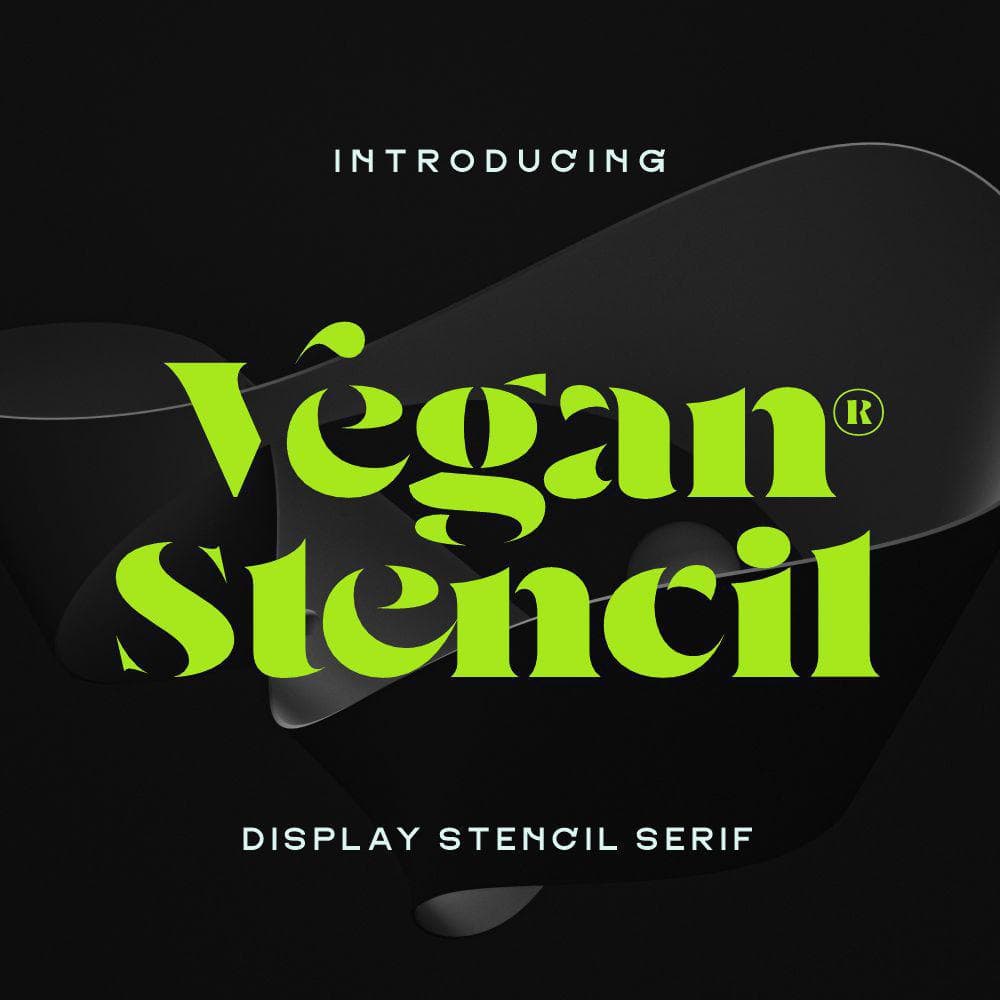
<p>*<em>introducing Vegan *</em>is a bold and elegant stencil serif typeface that combines sophistication with a modern edge. Its thick, well-defined letterforms create a striking visual presence, making it perfect for headlines, posters, branding, and editorial design. The stencil cutouts add a unique, contemporary touch while maintaining readability and a luxurious feel. Whether used in high-end fashion branding, event invitations, or magazine covers, Vegan delivers a strong and refined aesthetic. Its bold weight ensures impact, making it an excellent choice for projects that require a balance of elegance and authority.</p> <p>4o</p>